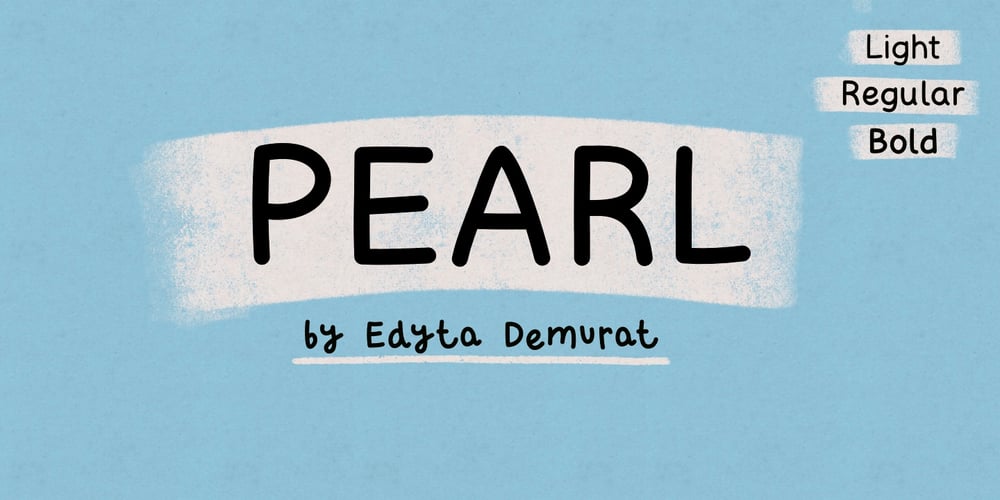
Pearl
Pearl font
Pearl Font Family was designed by Edyta Demurat and published by Edyta Demurat. Pearl contains 3 styles and family package options. Pearl is a handwritten, legible and universal font available in three varieties – light, regular and bold.